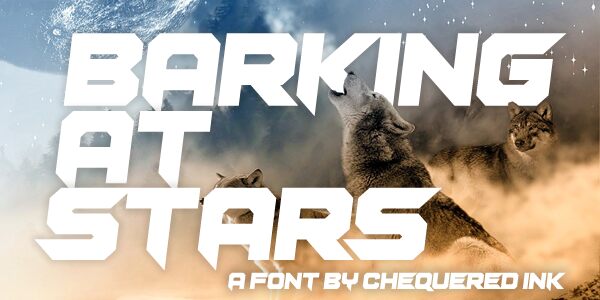
Barking at Stars Straight
Introducing the bold and futuristic Barking at Stars Straight font by Allison J James. With its wide display and unique style, it's perfect for creating eye-catching logos, album covers, posters and more. Showcase your creativity with this stylish font family!
Barking at Stars by Chequered Ink.